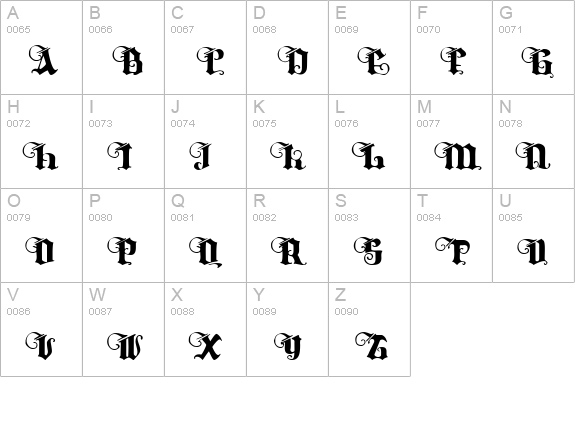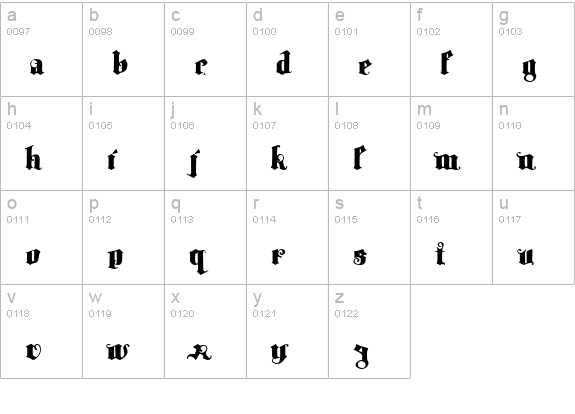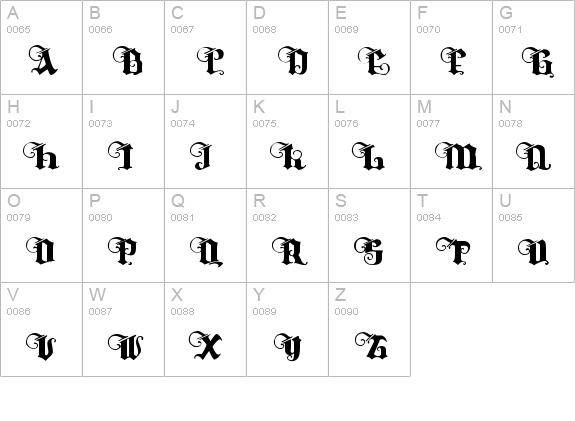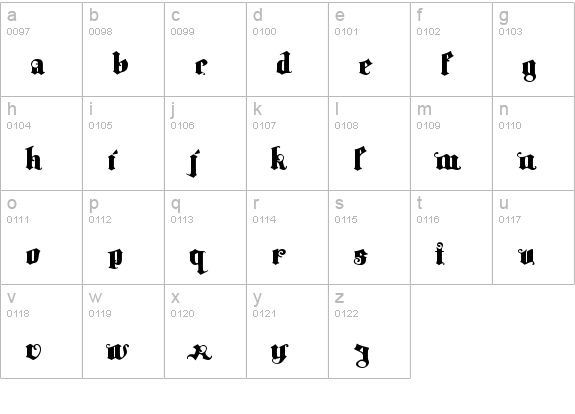
Tyrfing Demo font is a stunning display typeface that exudes a sense of elegance and sophistication. Its intricate letterforms are meticulously crafted, making it a perfect choice for any design project that requires a touch of refinement. This font boasts a unique and eye-catching style that captures attention instantly. With its clean lines and sharp edges, Tyrfing Demo font is sure to make a lasting impression. Whether used for logos, headlines, or any other creative endeavor, this font will elevate your design to new heights. One of the best things about Tyrfing Demo font is that it is free! Yes, you read that right. This incredible font is freely available to download at FontsMarket.com. So, you can enhance your designs without worrying about breaking the bank. Tyrfing Demo font offers a wide range of characters, including uppercase letters, lowercase letters, numbers, punctuation marks, and special symbols. This versatility allows you to create visually appealing and cohesive designs with ease. The attention to detail in Tyrfing Demo font is truly remarkable. From the graceful curves to the precise angles, every aspect of this font has been carefully considered. The result is a visually stunning and highly legible typeface that will bring your designs to life. So, if you're looking for a font that combines elegance, sophistication, and affordability, look no further than Tyrfing Demo font. Download it for free at FontsMarket.com and take your designs to the next level.